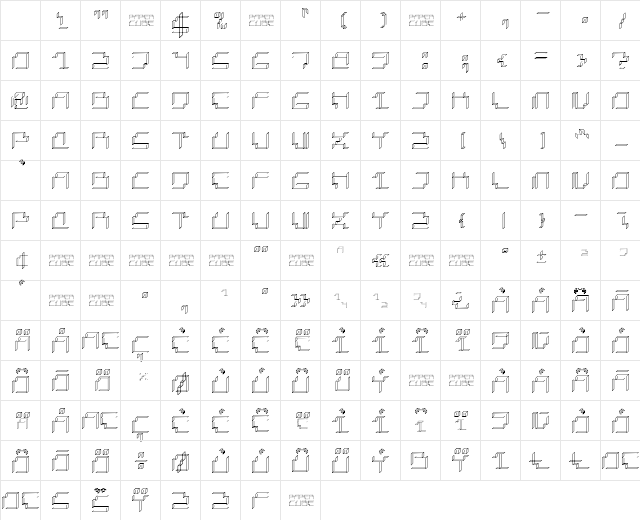
Complete Paper Cube paper Regular glyph index. Displaying only characters natively supported by Paper Cube paper Regular font.
Paper Cube paper is a composed and adaptable typeface that performs quietly and consistently across a wide range of design contexts.